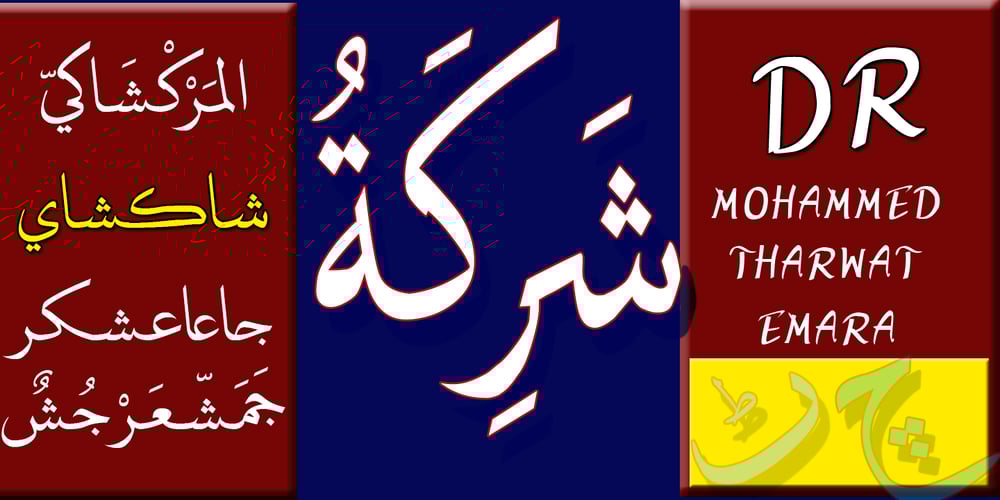
TE Dr. Mohammed Font Family was designed by Tharwat Mohamed Emara and published by Tharwat Emara. TE Dr. Mohammed contains 3 styles and family package options. Dr. Mohamed Font Combines the originality and modernity characterized by the strength of the letters and settings of theModulation marks used in the writing of newspapers, magazines, books, children’s books and billboards easy to read and also features new combinations of letters make it was handwritten and this font contains the letters (Arabic – Farsi – Urdu – Latin).